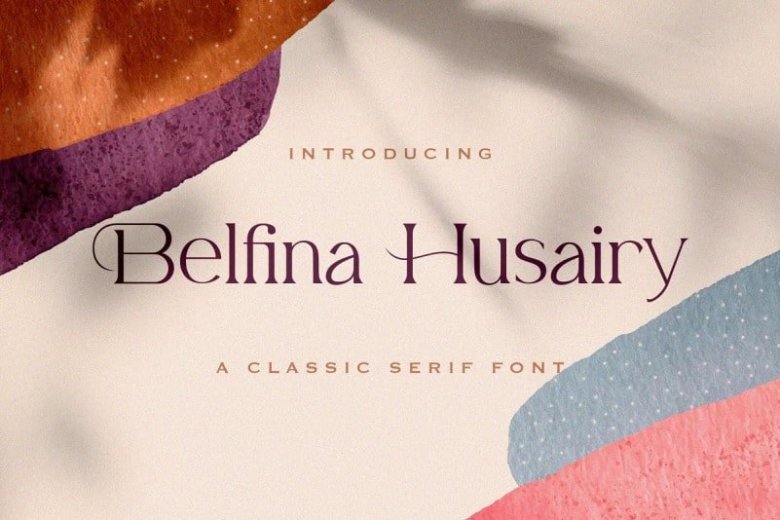
Belfina Husairy Font
Glad to introduce you for a new Belfina Husairy Serif Font with classic, elegant, vintage, and magic feel. It’s designed and shared by StringLabs.  It can easily be matched to an incredibly large set of projects, so add it to your creative ideas and notice how it makes them stand out!